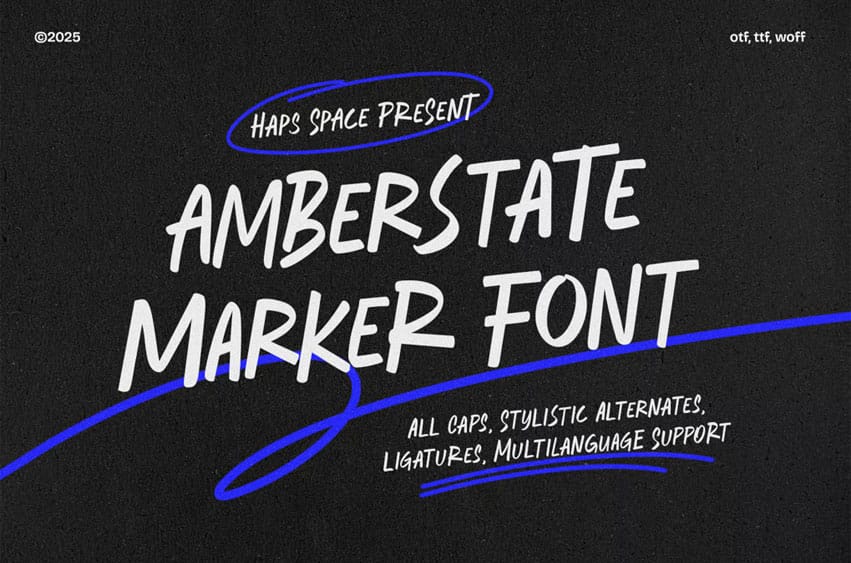
Amberstate Marker Font is a dynamic display typeface from Haps Space. It is characterized by its bold, expressive, and authentic brush or marker script style, mimicking genuine, rapid handwriting.
This font is primarily designed for impactful headlines, titling, and branding where a strong, personal, and energetic visual statement is desired. Its aesthetic leans towards a casual yet confident grunge or urban sensibility.
- Full multilingual character set
- OpenType features such as ligatures and alternates